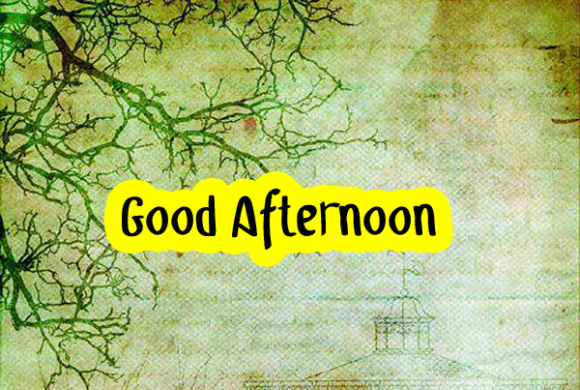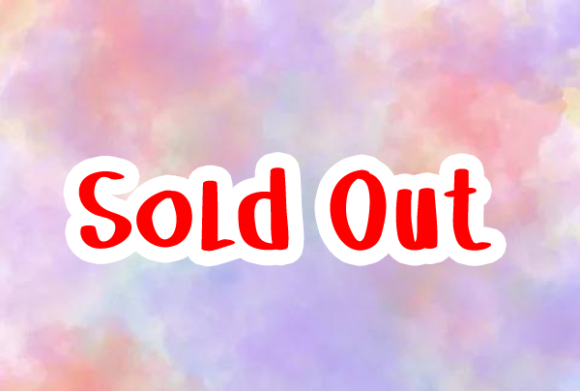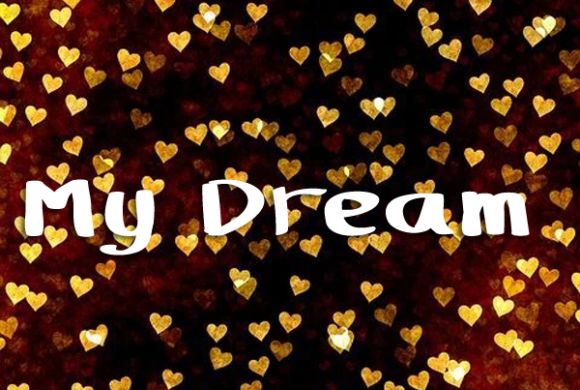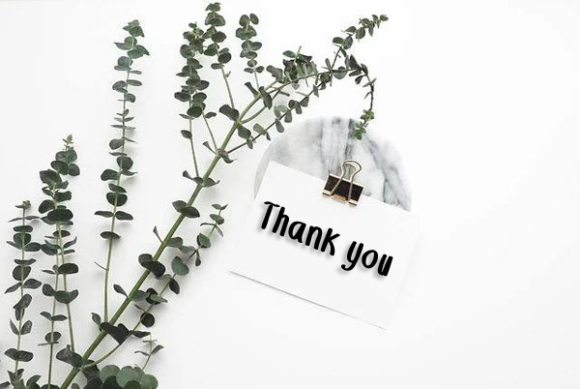
Remember Font
About Remember Font
Remember is a sweet and friendly handwritten font. Its natural and unique style makes it incredibly fitting to a large pool of designs. The only limit is your imagination!